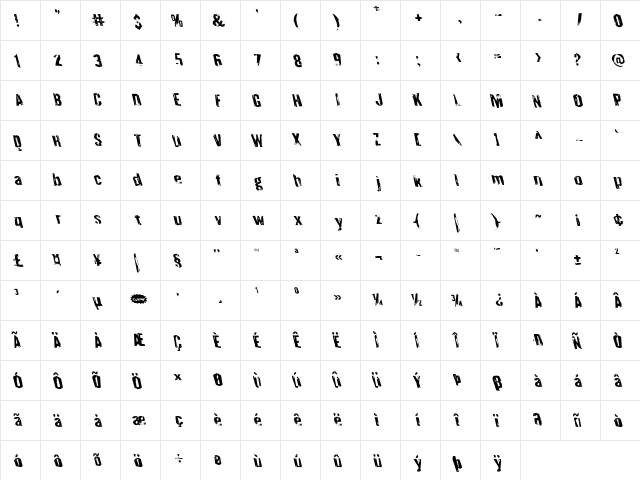
Quarrystone Leftalic Italic
Design Context for Quarrystone Leftalic Typeface
Quarrystone Leftalic is a composed and adaptable typeface that performs quietly and consistently across a wide range of design contexts. The dynamic lean of this cut emphasises speed and emphasis in any layout.
Pro Tip: Try Quarrystone Leftalic for annotation and caption copy alongside an upright companion — the contrast in angle creates a dynamic but ordered typographic system.